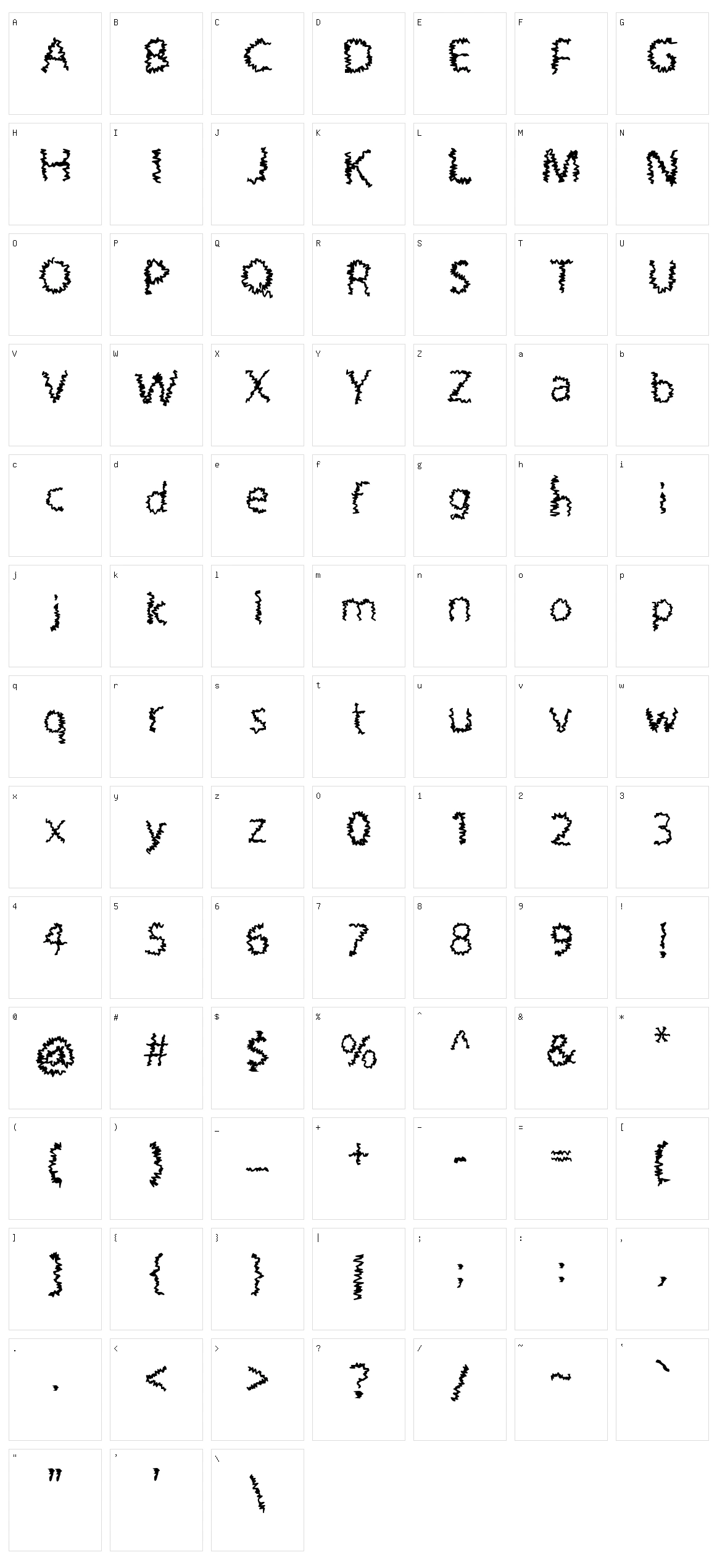
The free font Rough Treatment is carefully designed by Ajith Rajan, showcasing a thoughtful balance of creativity and usability and falls under the Distorted font style. When you download the ZIP file, it contains only 55.85 KB of font files, making it lightweight and quick to download. Please review the license details below to understand permitted usage and distribution rights. If license information is not available, we recommend using this font for personal projects only or contacting the author directly for commercial usage permissions.